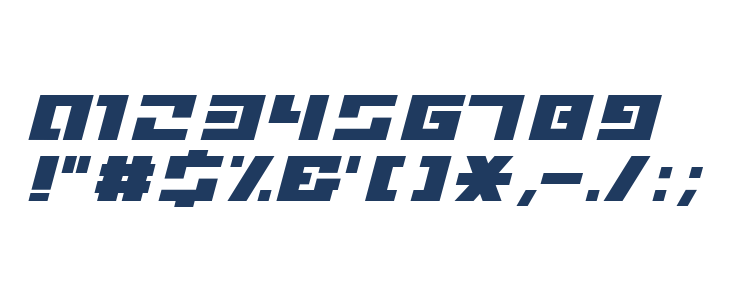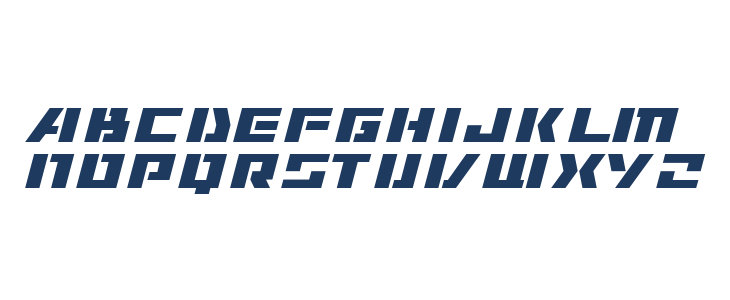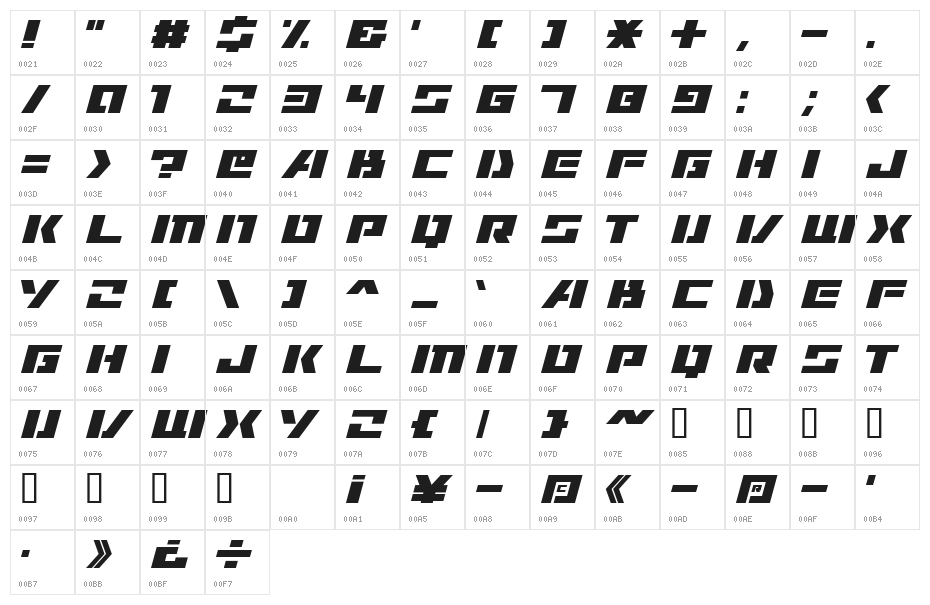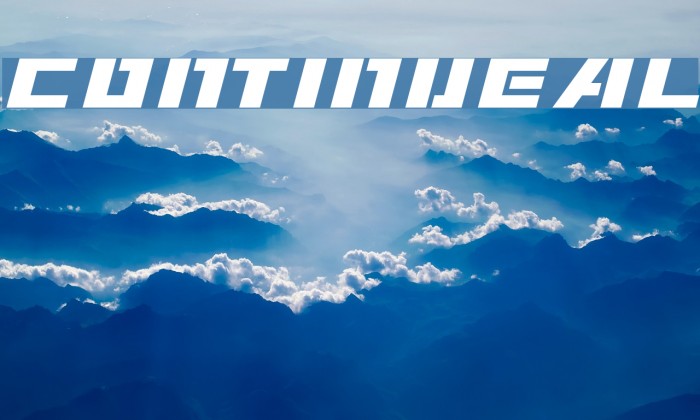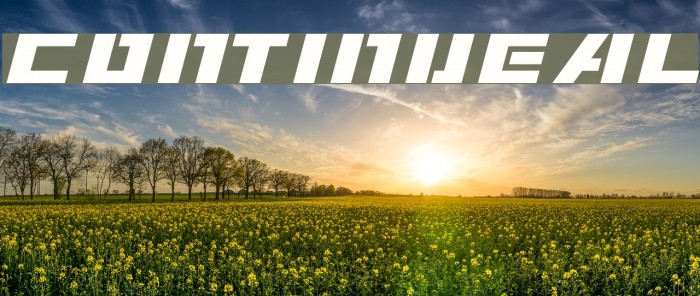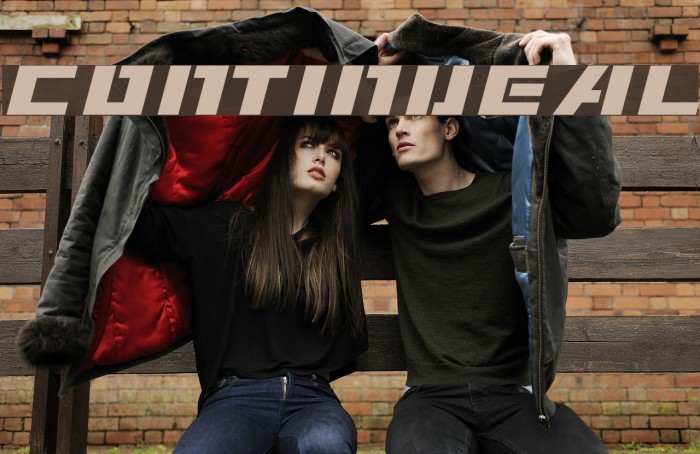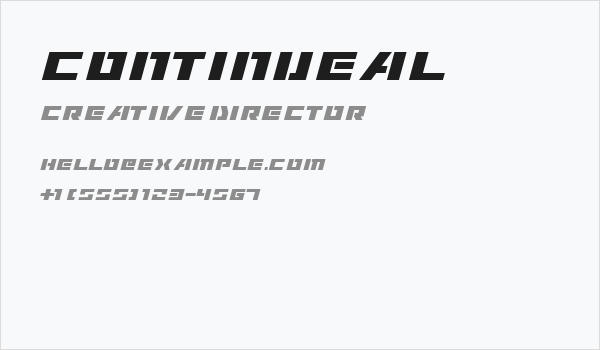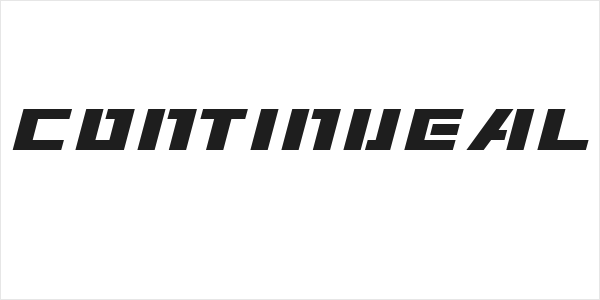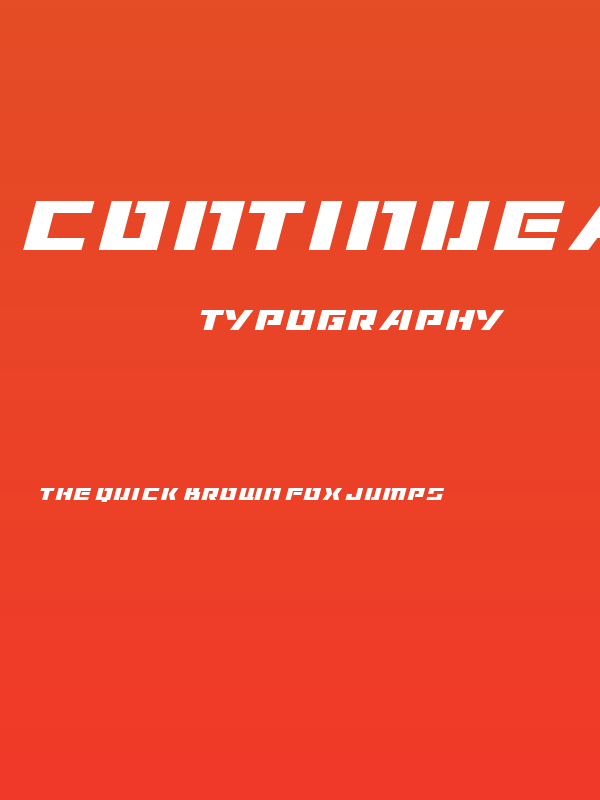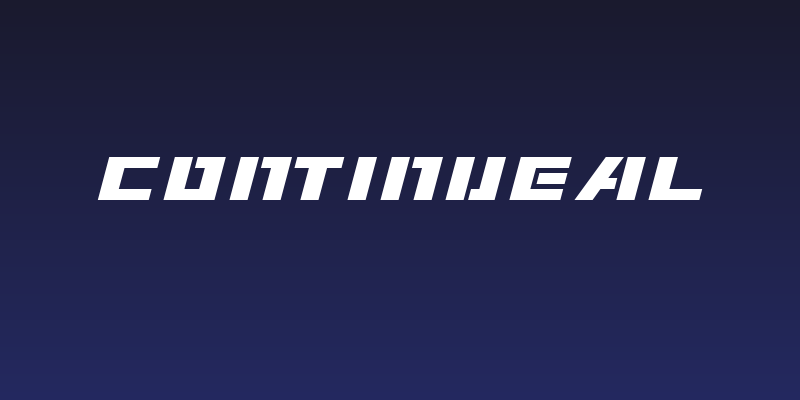
ContinueAL Font
ContinueAL Description
This font features a bold and dynamic style with a futuristic and angular design. The characters are sharply cut with a distinct slant, giving them a sense of motion and energy. The uppercase and lowercase letters maintain a consistent geometric form, while the numbers and special characters complement the overall aesthetic. The font's unique style makes it stand out, with each character having a strong presence due to its thick strokes and angular cuts. The design is modern and edgy, suitable for projects that require a bold statement.
| Proposed Projects | Ideal for sci-fi themed projects, video game titles, posters, and branding that requires a modern and bold look. |